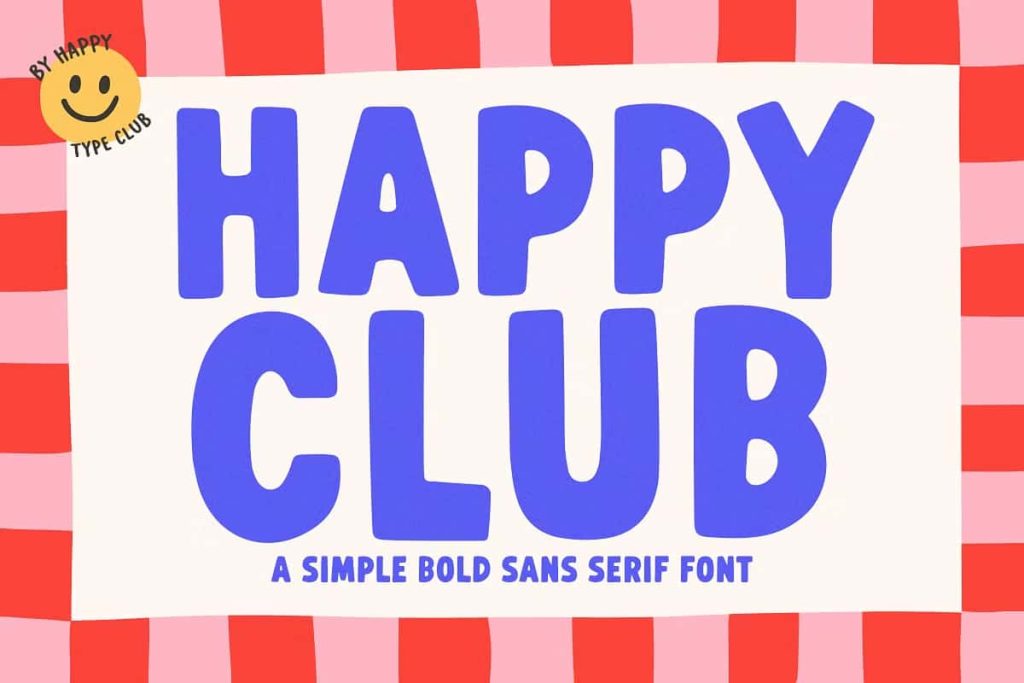
Happy Club Bold Typeface for Fun and Quirky Designs
Happy Club is a playful and bold typeface designed to bring energy, simplicity, and personality into your creative projects. With its clean yet quirky letterforms, this font delivers a cheerful and approachable style that instantly captures attention. Whether you design for print or digital media, Happy Club gives you the flexibility to create visuals that feel fun, engaging, and full of character.
Simple Design with Strong Visual Impact
Happy Club stands out through its simplicity. The bold structure ensures that every letter remains clear and easy to read, while the subtle quirks in its design add charm and uniqueness. This combination allows you to create designs that feel lighthearted without sacrificing clarity or professionalism.
The font’s straightforward style makes it highly versatile. You can use it for both large display text and smaller design elements while maintaining a consistent and appealing look.
Quirky and Playful Personality
What makes Happy Club truly special is its playful personality. The slightly unconventional shapes and balanced proportions give the font a friendly and inviting feel. This makes it perfect for projects that aim to communicate joy, creativity, and positivity.
Designers can use this font to create visuals that connect emotionally with audiences, especially in projects that target a younger or more casual market.
Perfect for Merchandise and Product Design
Happy Club works exceptionally well for merchandise design. Its bold and clear structure ensures that it translates beautifully onto physical products such as t-shirts, mugs, and phone cases. The font’s playful style helps your designs stand out, making them more appealing to customers.
You can use it to create eye-catching graphics that enhance the overall look of your products. Its versatility allows you to adapt it to different themes and styles with ease.
Ideal for Greeting Cards and Invitations
If you want to design greeting cards or invitations that feel cheerful and engaging, Happy Club is an excellent choice. Its friendly appearance adds warmth and personality to your messages, making them more memorable and enjoyable to read.
You can use it for birthdays, celebrations, and special events. The font helps you create designs that feel personal and expressive, enhancing the overall experience for your audience.
Enhance Creative DIY Projects
Happy Club is also perfect for DIY and craft projects. Its bold and simple style makes it easy to work with, whether you are creating stickers, labels, or custom decorations. The font adapts well to different materials and formats, ensuring consistent results across your projects.
Crafters and designers alike can use this typeface to bring their ideas to life with a fun and creative touch.
Versatile for Digital and Social Media Content
In the digital space, Happy Club helps you create content that stands out in crowded feeds. Its bold and quirky design captures attention quickly, making it ideal for social media graphics, promotional posts, and online branding.
You can use it to design engaging visuals for platforms like Instagram, websites, and digital campaigns. The font maintains its clarity and charm across different screen sizes, ensuring a consistent user experience.
Flexible for Various Creative Applications
Happy Club adapts easily to a wide range of creative uses. From branding and packaging to posters and marketing materials, this font delivers a consistent and playful look. Its simplicity allows you to combine it with other design elements without overwhelming your composition.
You can experiment with colors, layouts, and graphics to create unique designs that reflect your style. The font’s versatility ensures that it remains a valuable tool for both personal and professional projects.
Key Features of Happy Club Typeface
- Simple and bold letterforms for strong readability
- Quirky and playful design for fun creative projects
- Ideal for merchandise such as t-shirts, mugs, and phone cases
- Perfect for greeting cards, invitations, and DIY crafts
- Works well across print and digital platforms
Bring Joy into Your Designs
Happy Club bold typeface gives you the tools to create designs that feel lively, friendly, and full of personality. Its combination of simplicity and charm allows you to produce visuals that connect with audiences and leave a lasting impression.
If you want to design projects that stand out with a fun and quirky touch, Happy Club is the perfect choice. Use it to enhance your creative work, build engaging visuals, and bring a sense of joy into every design you create.